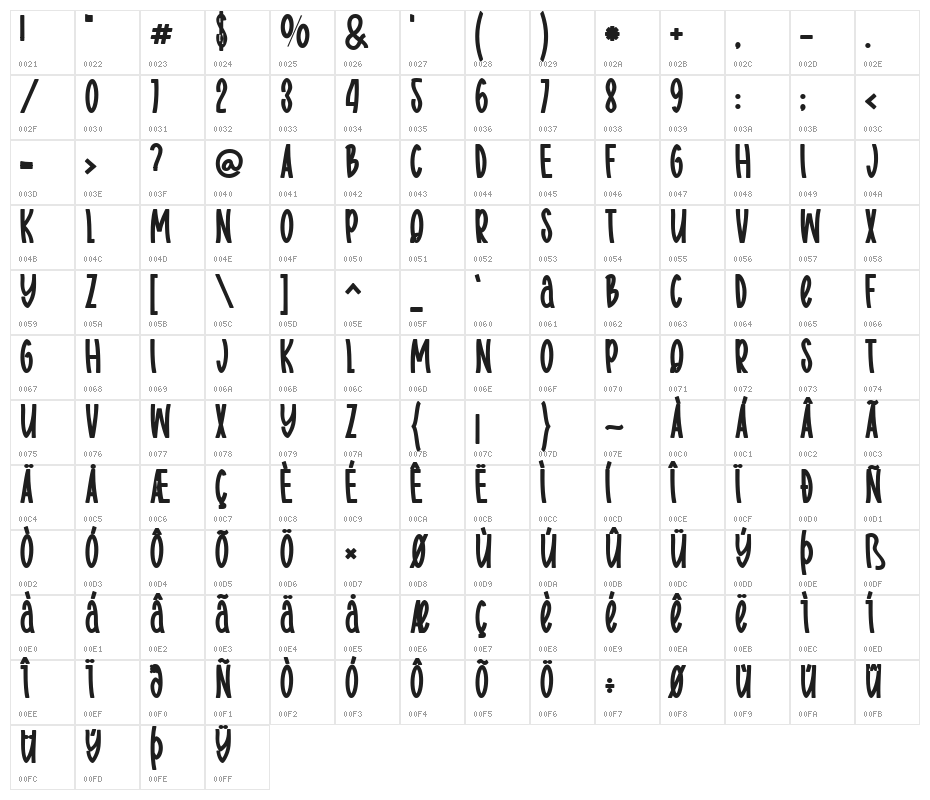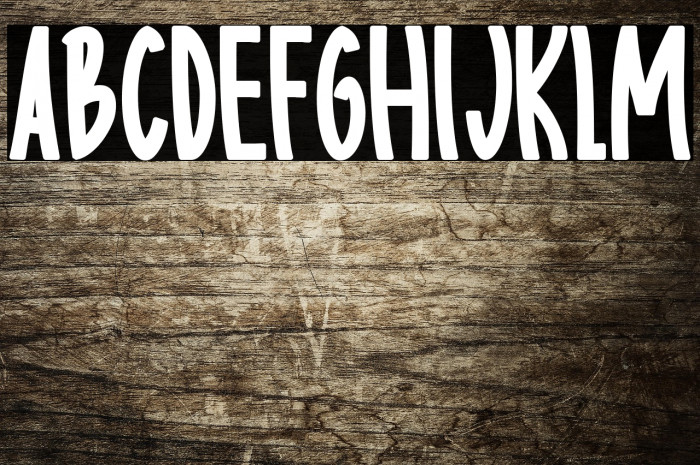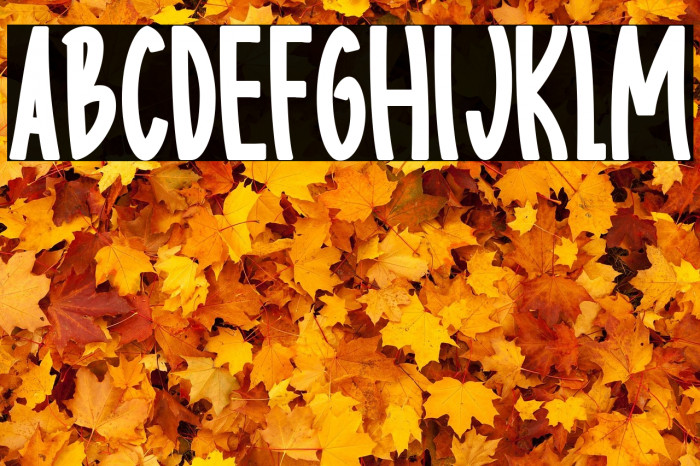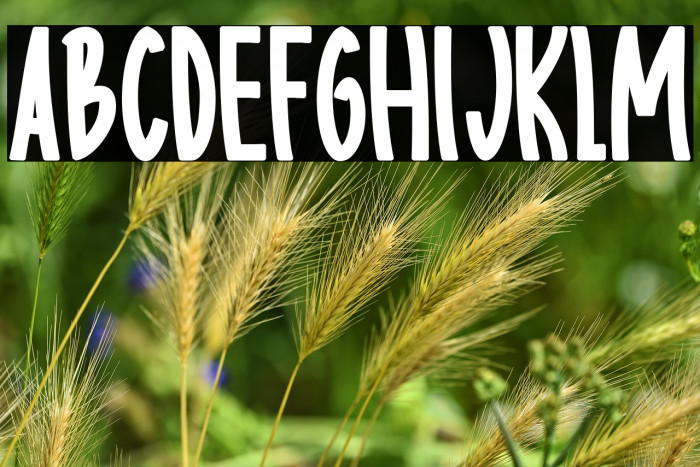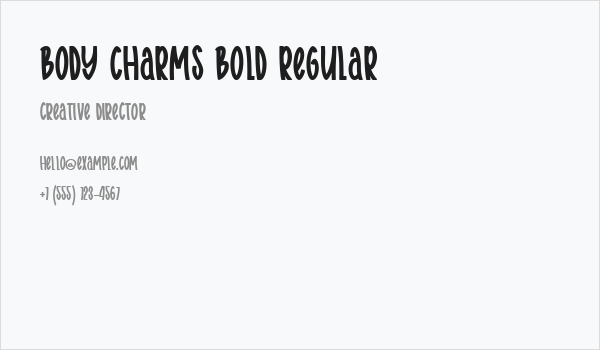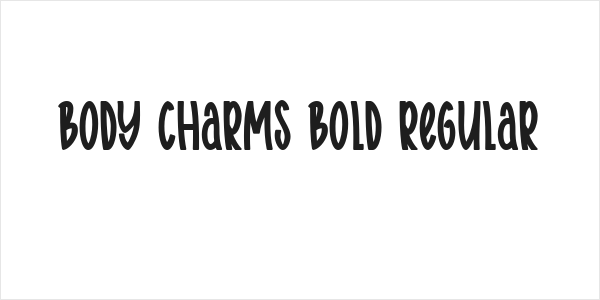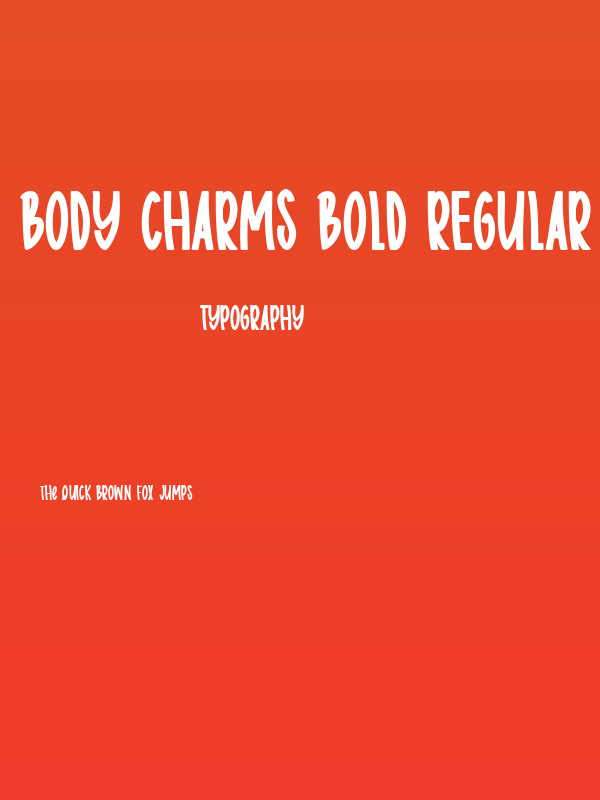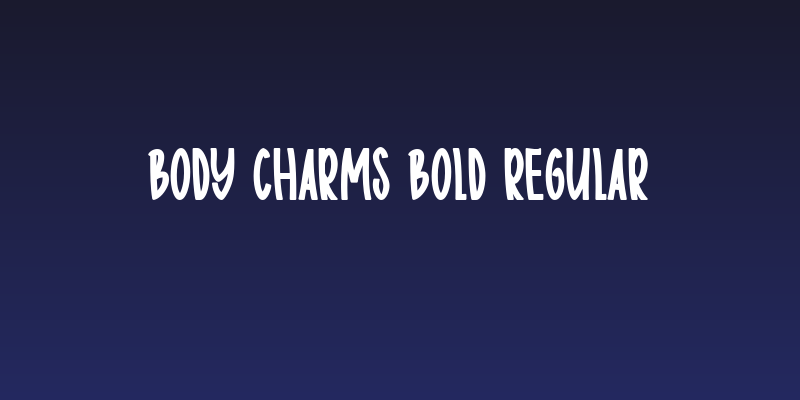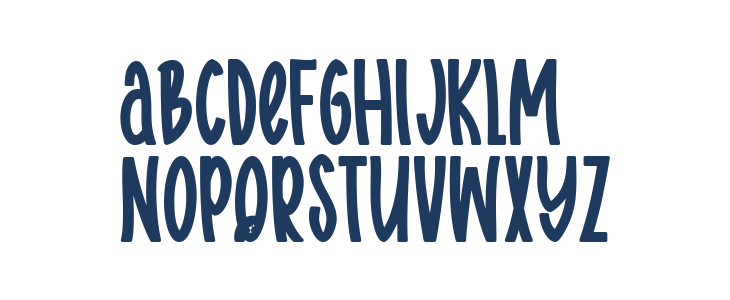
Body charms bold Regular Font
Body charms bold Regular Description
This font features a bold and playful design with a hand-drawn aesthetic. The characters are tall and slightly condensed, giving a whimsical and energetic feel. The strokes are thick and uniform, providing a strong visual impact. The uppercase and lowercase letters maintain a consistent style, with rounded edges and a slight slant that adds to the casual, friendly vibe. The numerals and special characters are equally bold and expressive, making them stand out. This font is ideal for projects that require a fun and engaging look, such as children's books, posters, and creative branding.
| Proposed Projects | Ideal for children's books, playful posters, and creative branding. |